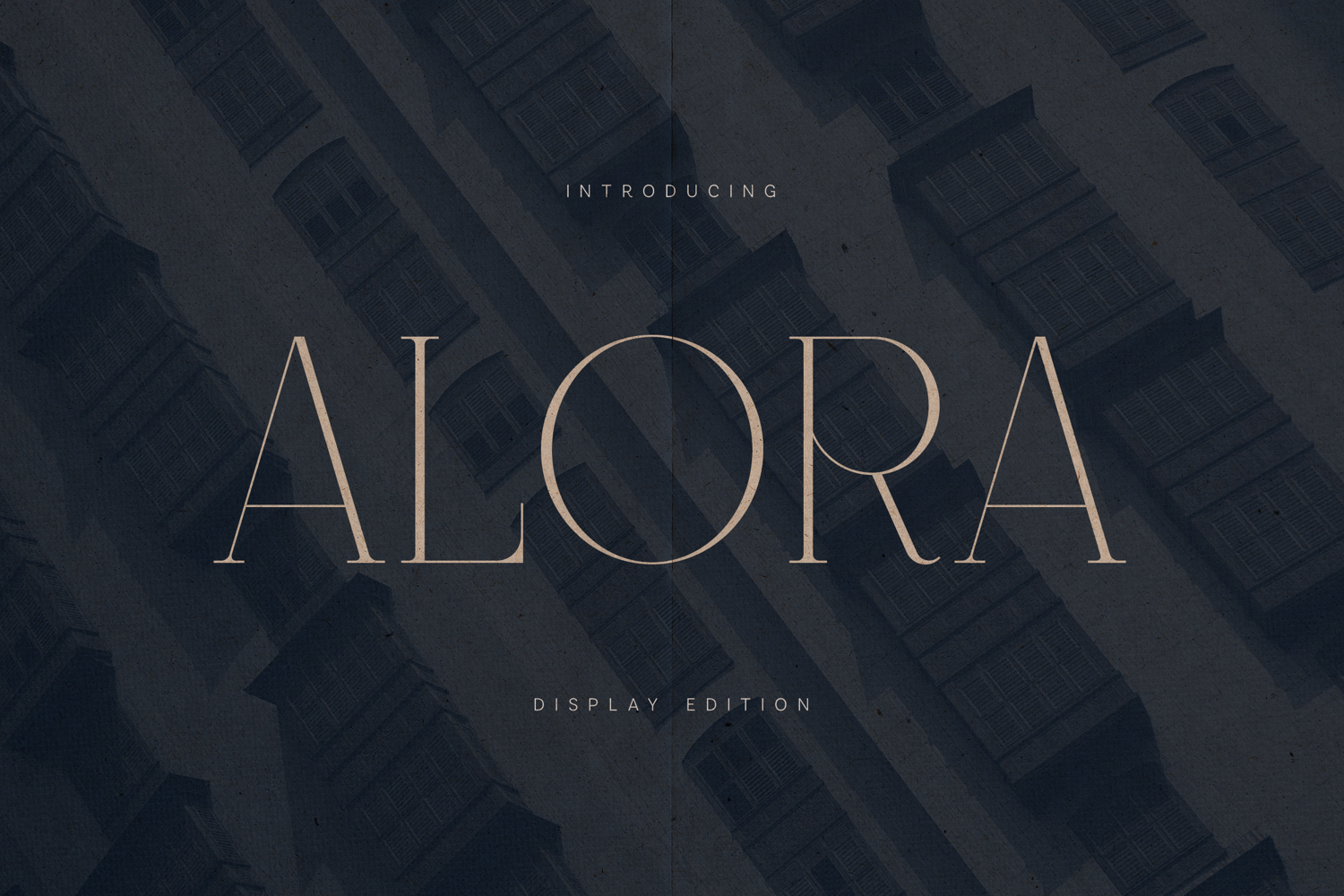
Alora Elegant Modern Serif Font
Alora is a refined and elegant modern serif typeface created for sophisticated branding, editorial layouts, and premium design projects. With its tall proportions, delicate stroke contrast, and smooth curves, the font delivers a timeless and luxurious typographic presence.
The design blends classic serif structure with a contemporary editorial feel, making it perfect for fashion branding, magazine headlines, luxury packaging, logo design, invitations, and modern visual identities. Its elegant letterforms provide strong visual impact while remaining balanced and readable.
Alora’s carefully crafted characters give designers the ability to create striking typography that feels both modern and timeless. The font performs beautifully in large display settings such as headlines and branding, but it also maintains excellent clarity in editorial layouts.
The typeface includes uppercase and lowercase characters, numerals, punctuation, and extended multilingual language support, allowing it to work across international design projects.
Whether used for luxury branding, fashion editorials, stylish social media graphics, or elegant packaging, Alora brings a refined and sophisticated look to any creative work.